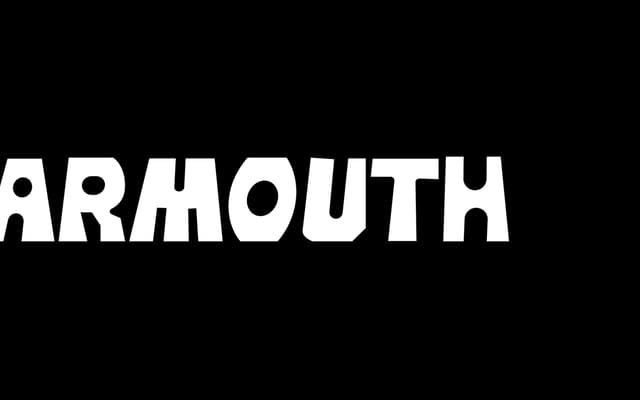
A deliberately imperfect block display font drawn from the tradition of handmade coastal signage in New England.
Yarmouth leans into the irregularity of hand-painted lettering, giving it a warmth that polished display fonts rarely achieve. The block construction references vernacular sign-painting traditions of coastal New England, making it well-suited to branding, packaging and editorial work that calls for an authentic, handmade character. At $25 with a commercial licence add-on available, it is an accessible option for regional or artisanal projects.
A display block font with deliberate imperfections evoking handmade signage; sits closest to a hand-lettered display category given its intentional irregularity and vernacular roots.